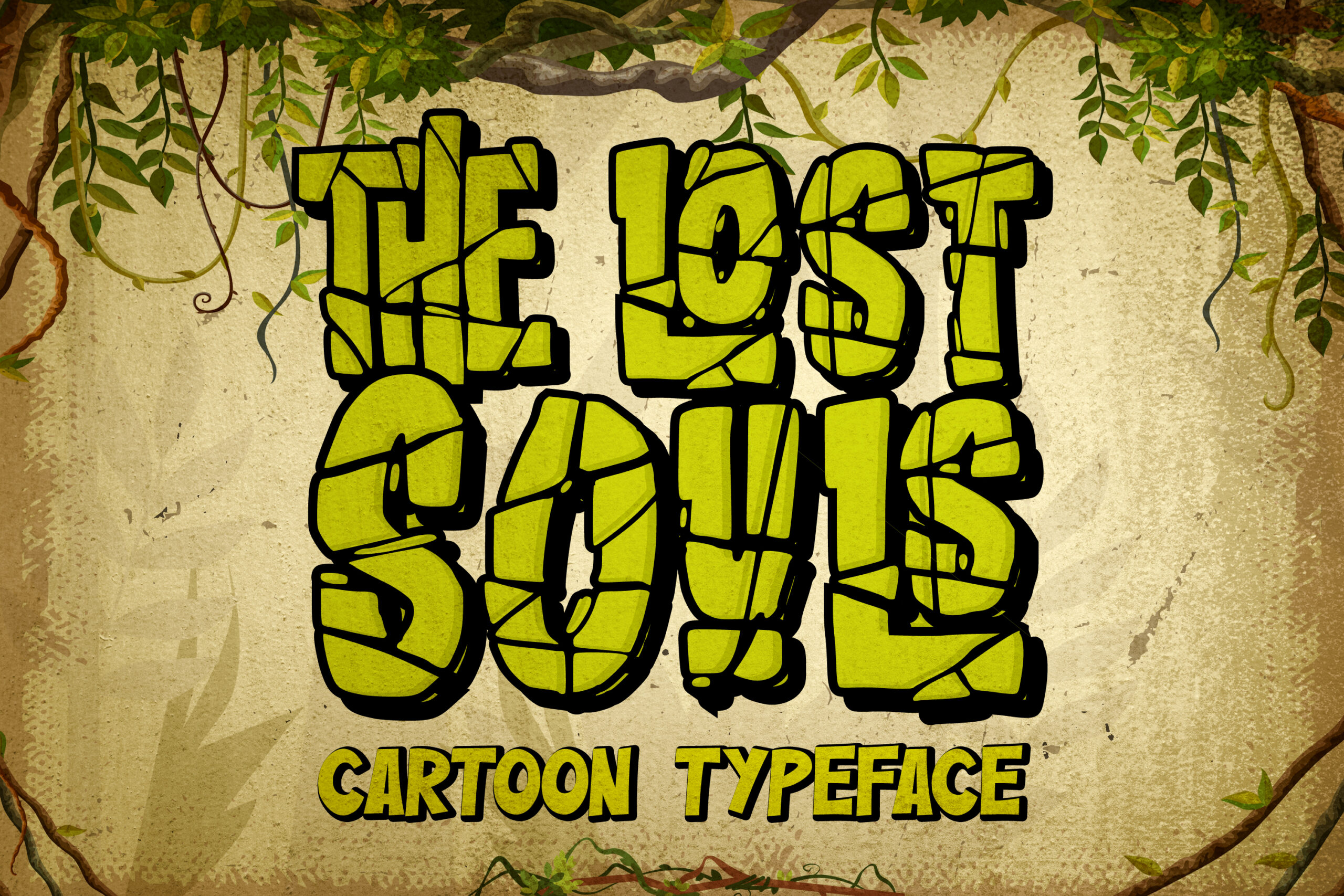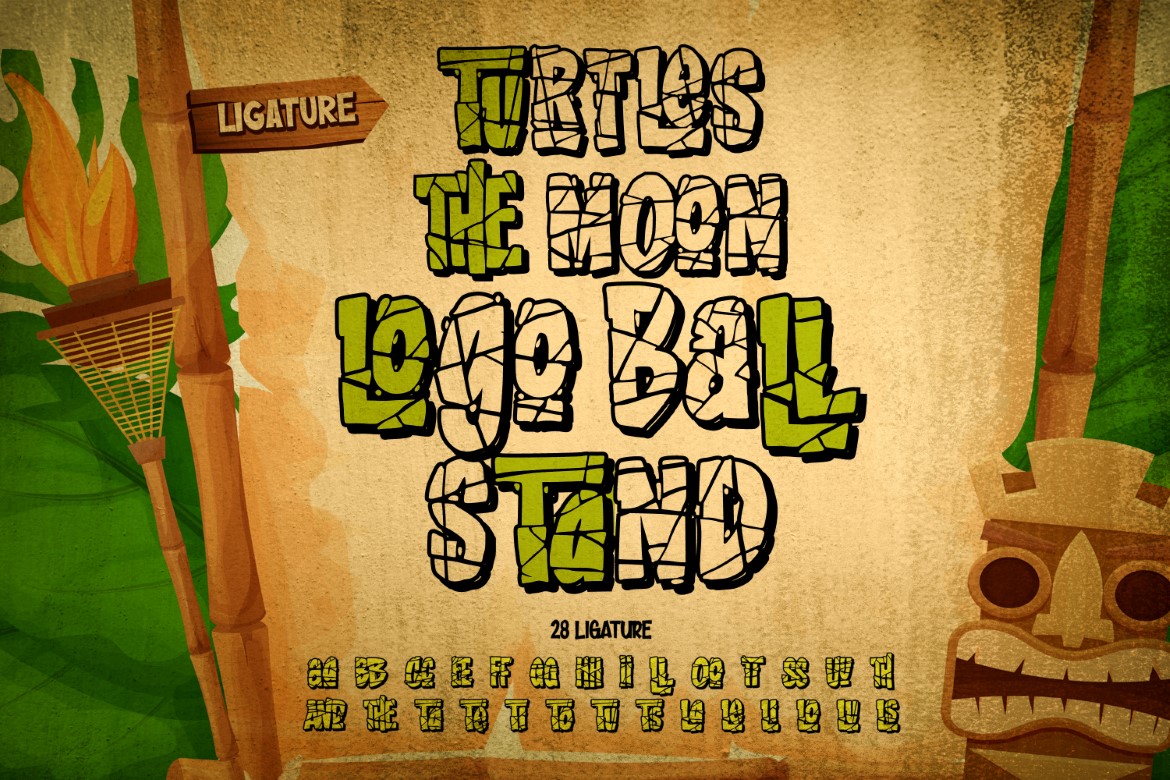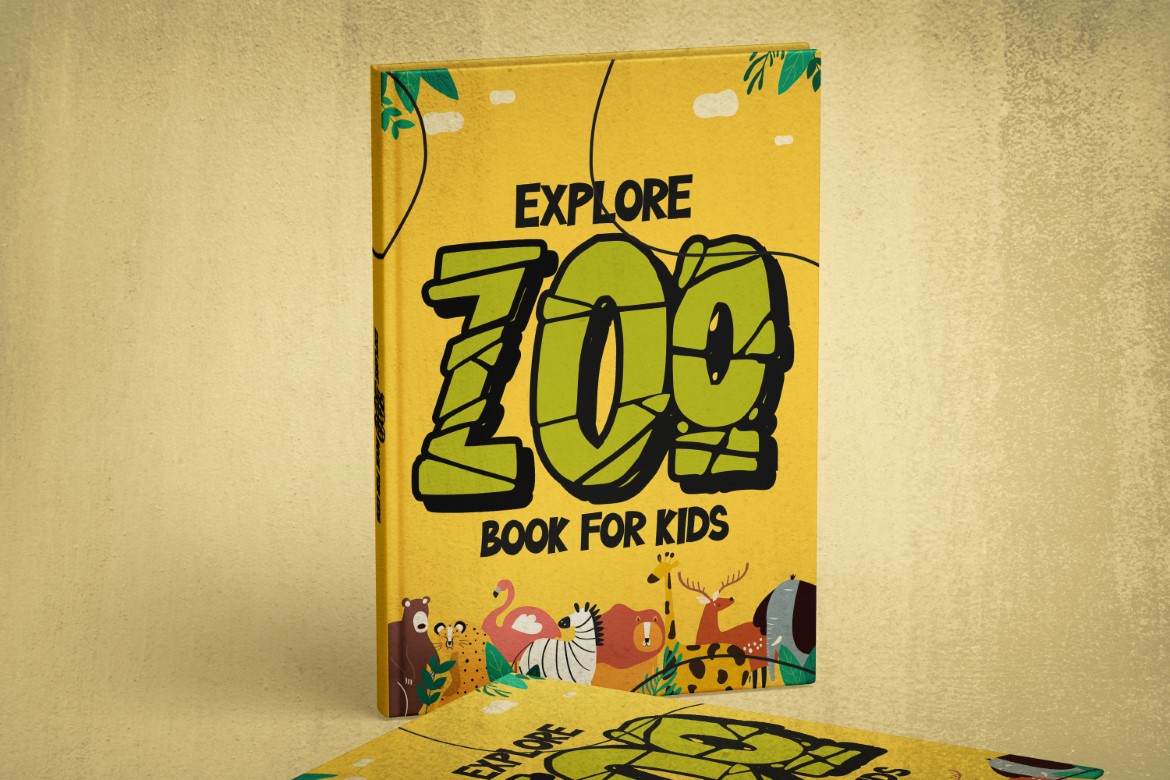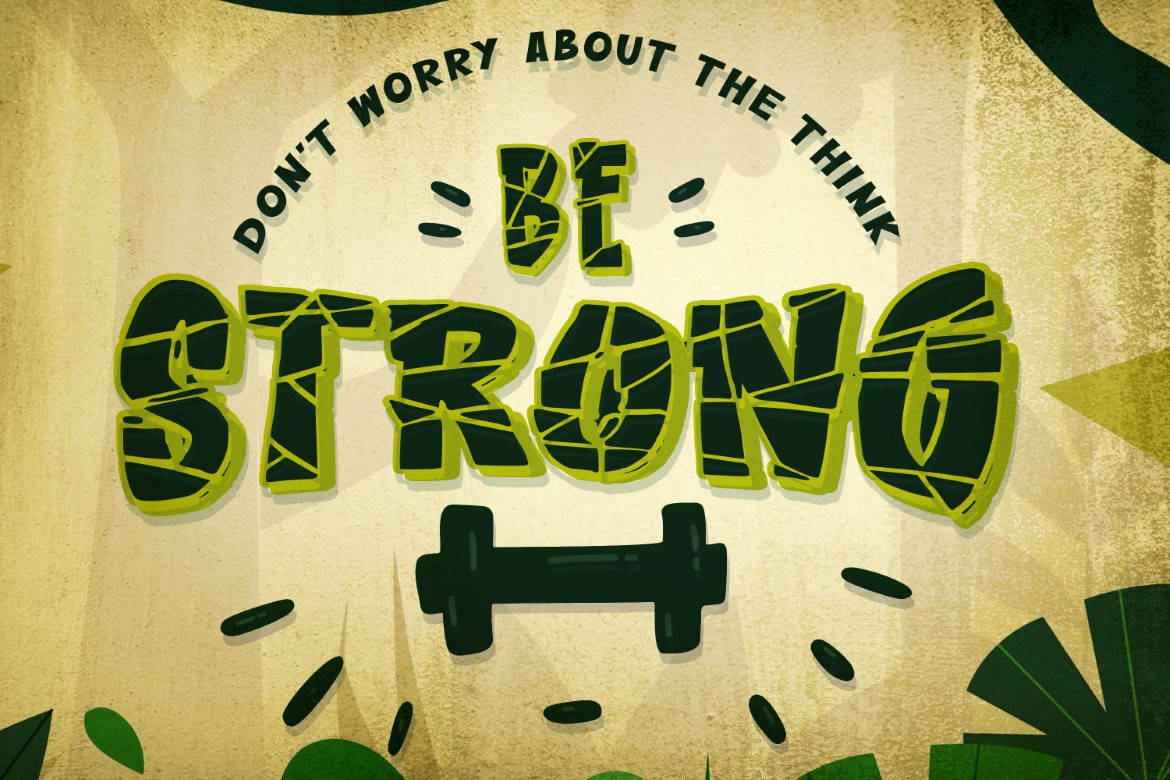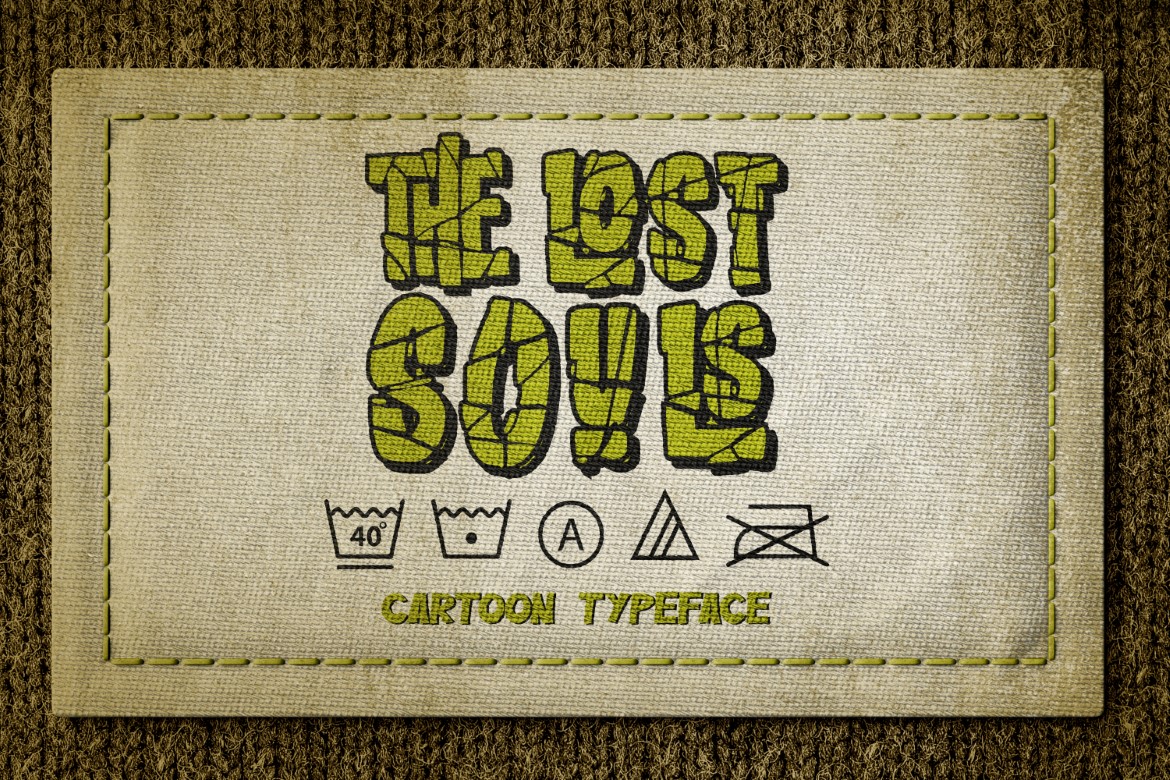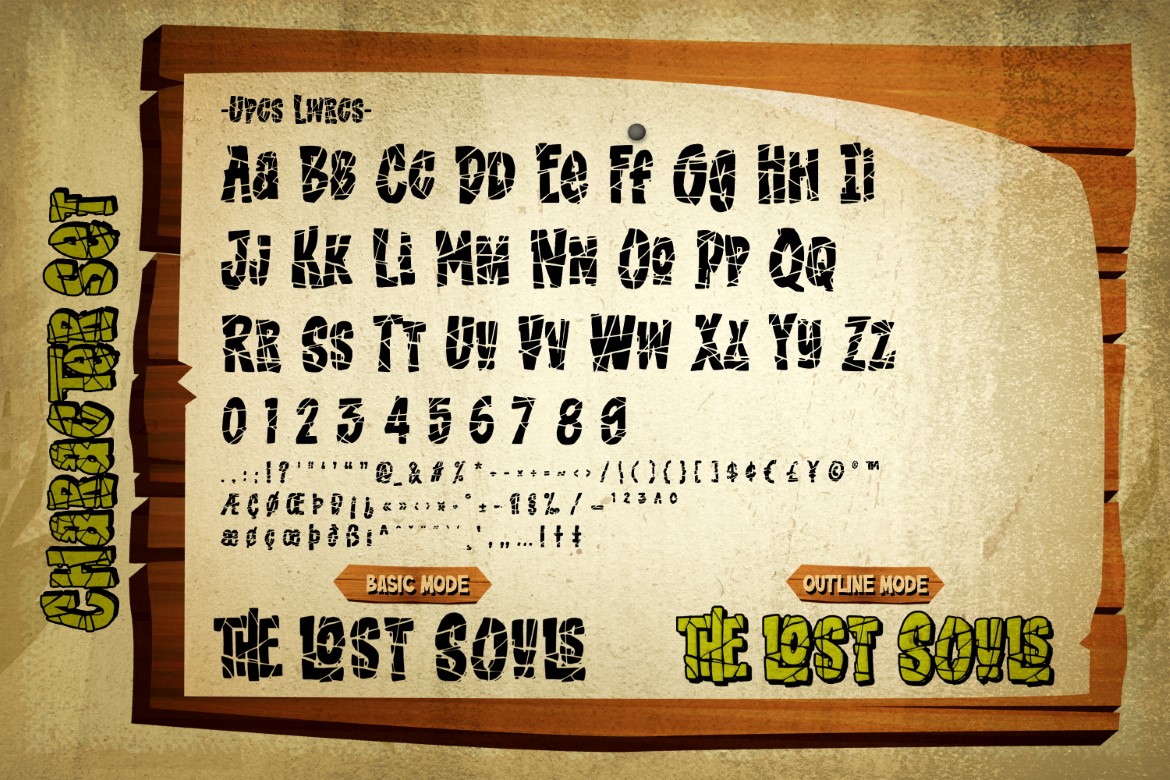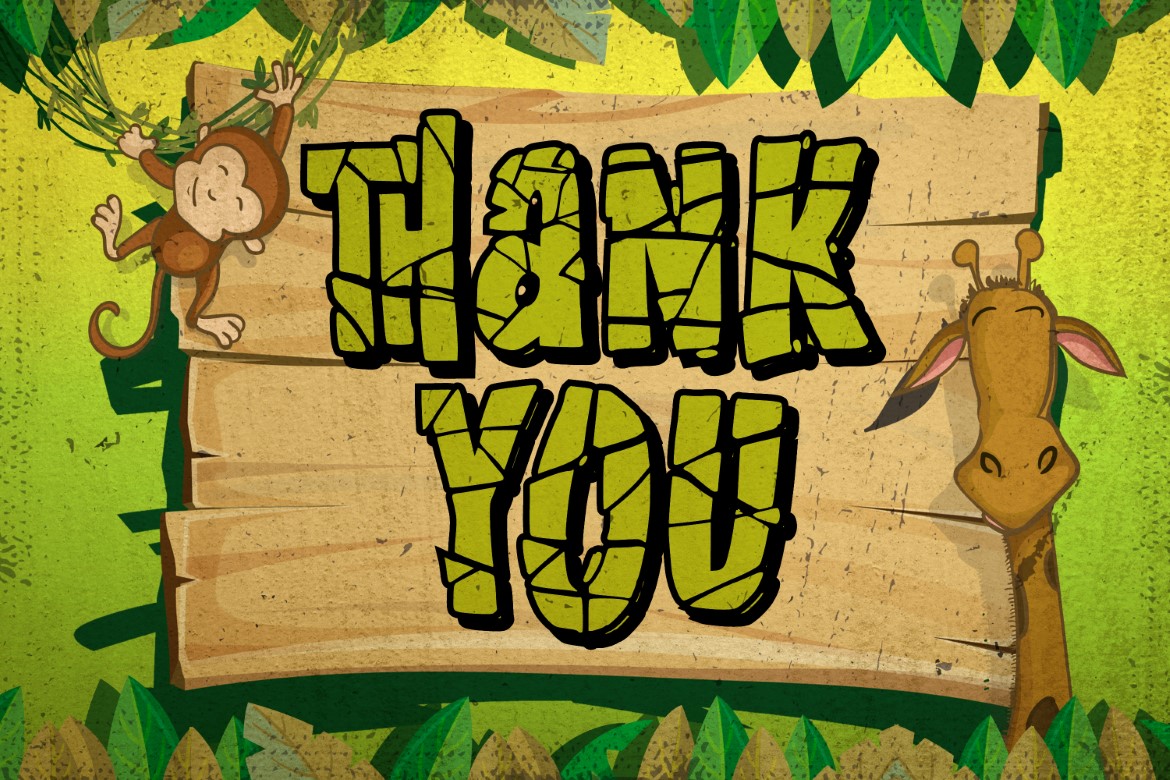
Hello Everyone, introduce our new product font The Lost Souls , inspired from Cartoon Typeface Display Font, recreated for modern branding.
You can use and enjoy this Font for anything from promotional material and poster quotes, to product packaging, merchandise and branding projects
And this font perfect for logo, packaging, magazine, sport, poster, apparel, title, social media post, ad banner, book cover, poster quotes, greeting cards and advertising.
The Lost Souls Perfect for designs, branding projects, Logo design,Quotes product packaging and another Project that require cool strong unique font.
- Ligatures